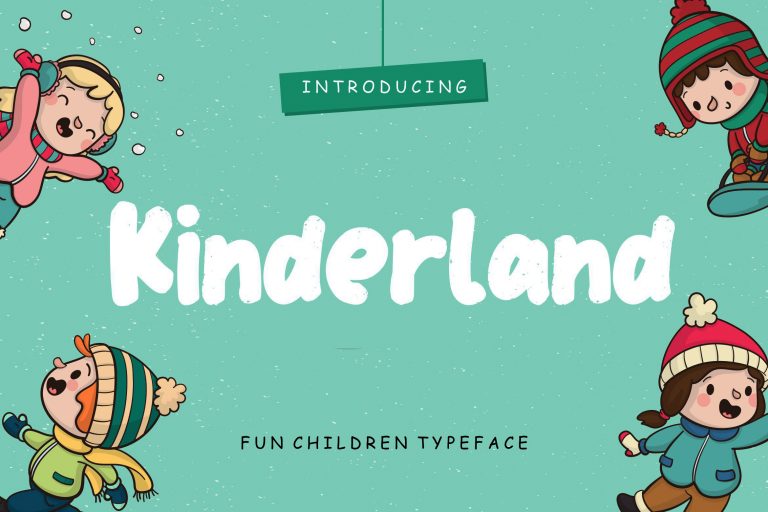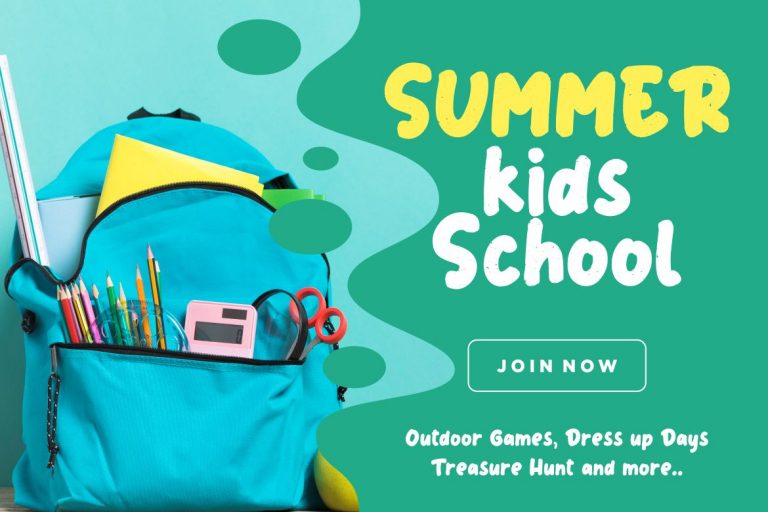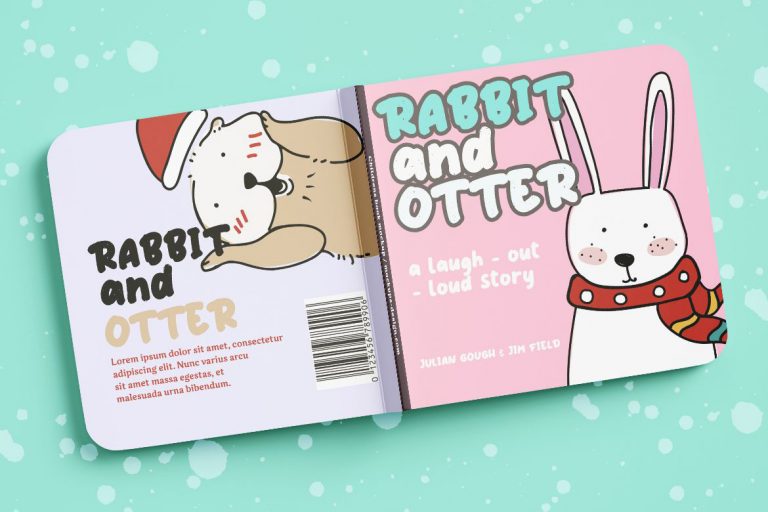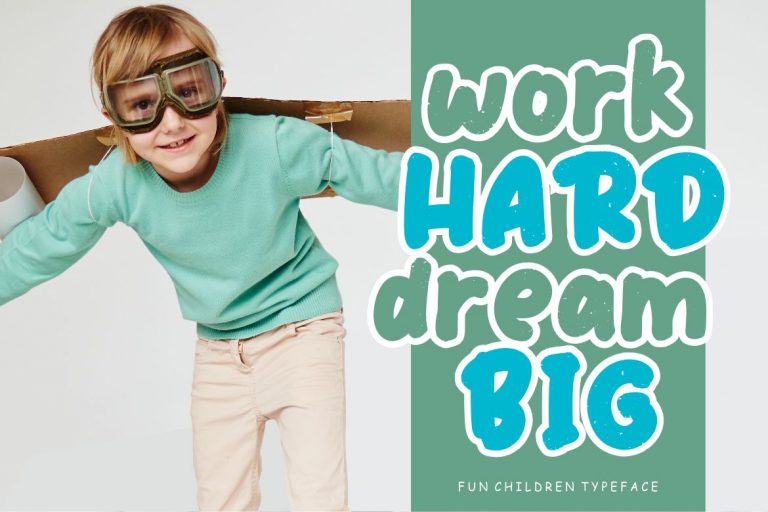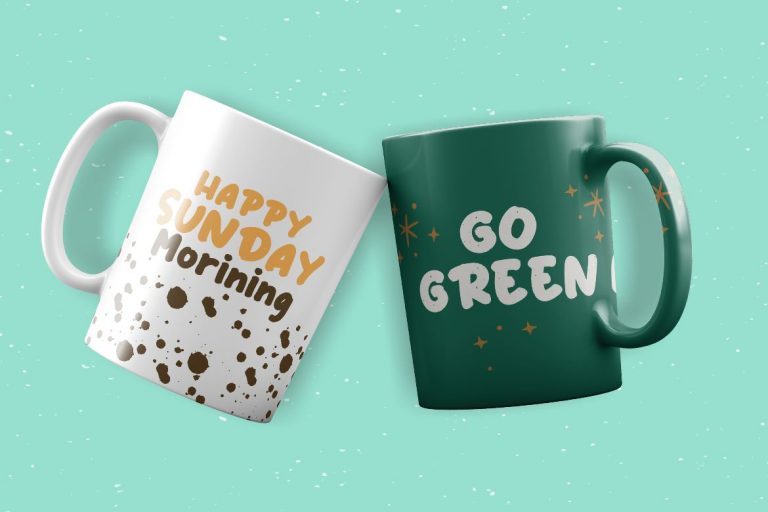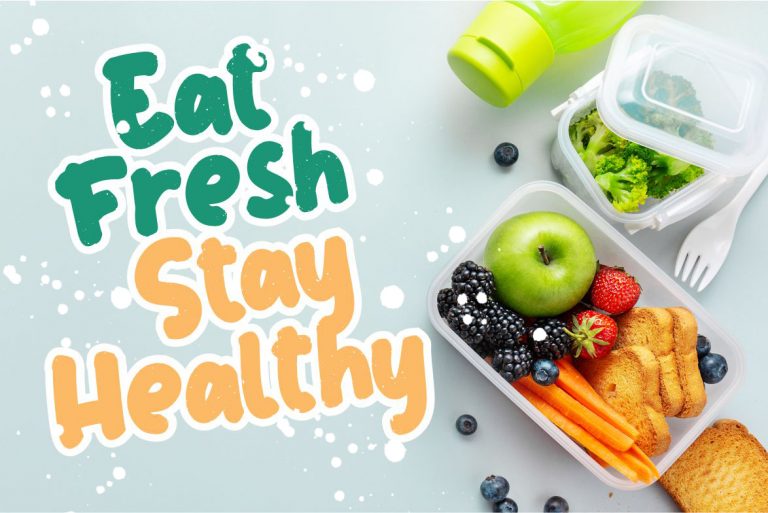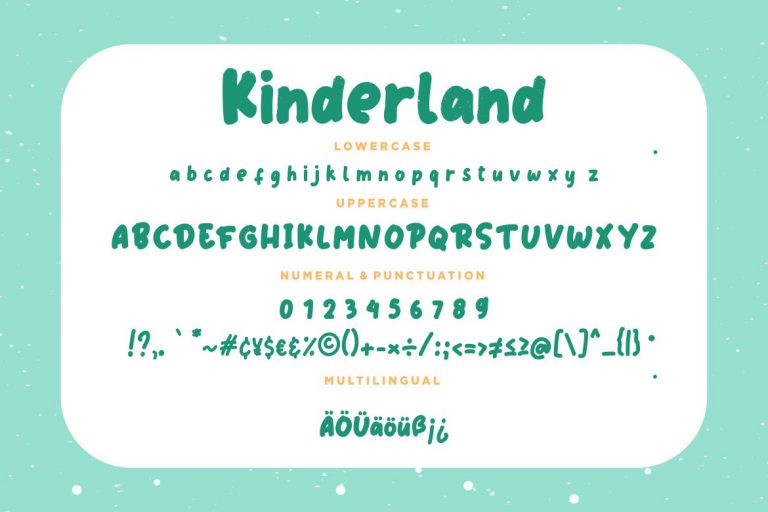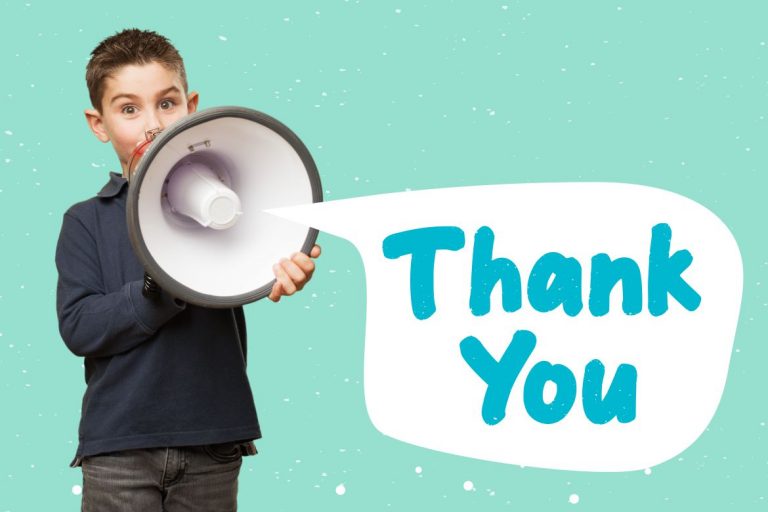
Kinderland Fun Children Typeface
Kinderland is a fun children font which perfect for children and kindergarten events.
- Fonts include multilingual support for; ä ö ü Ä Ö Ü ß ¿ ¡